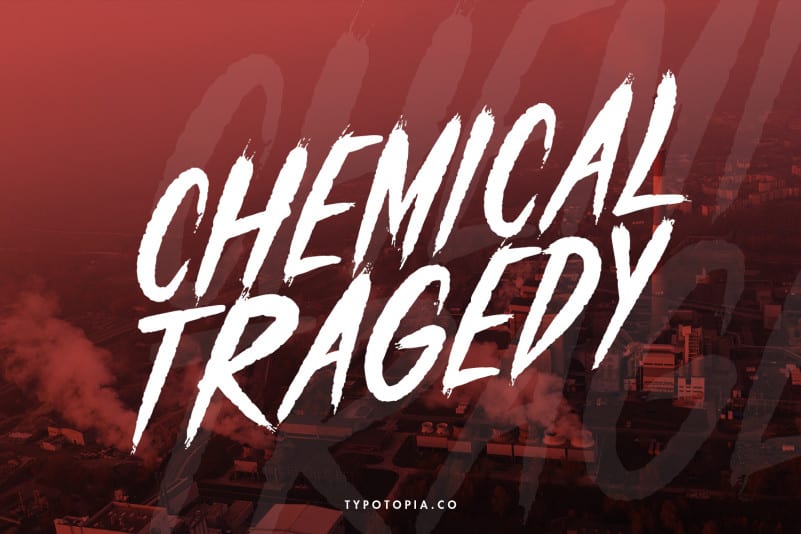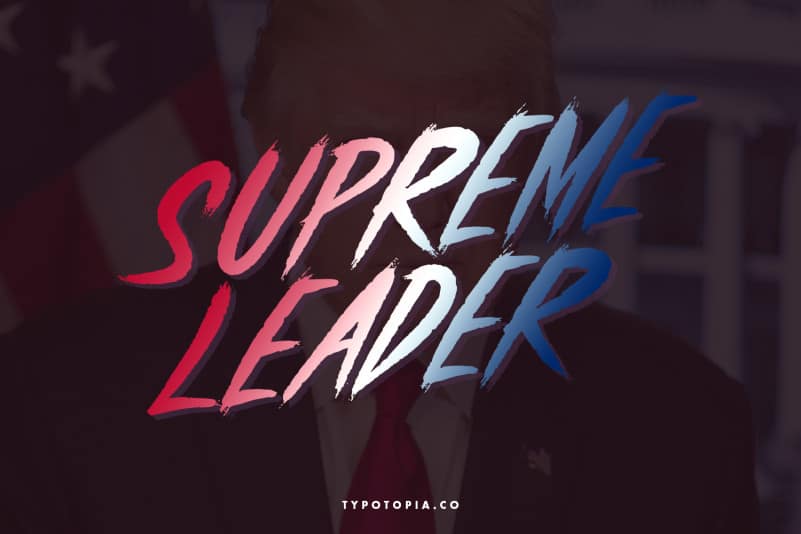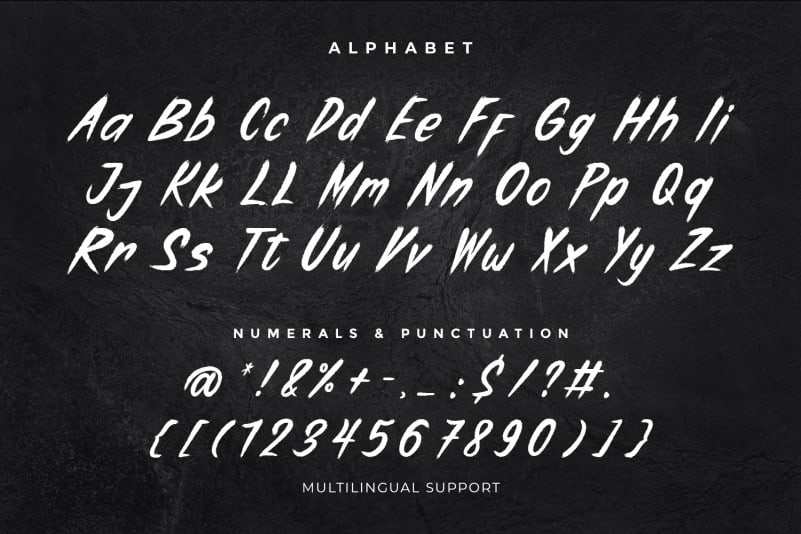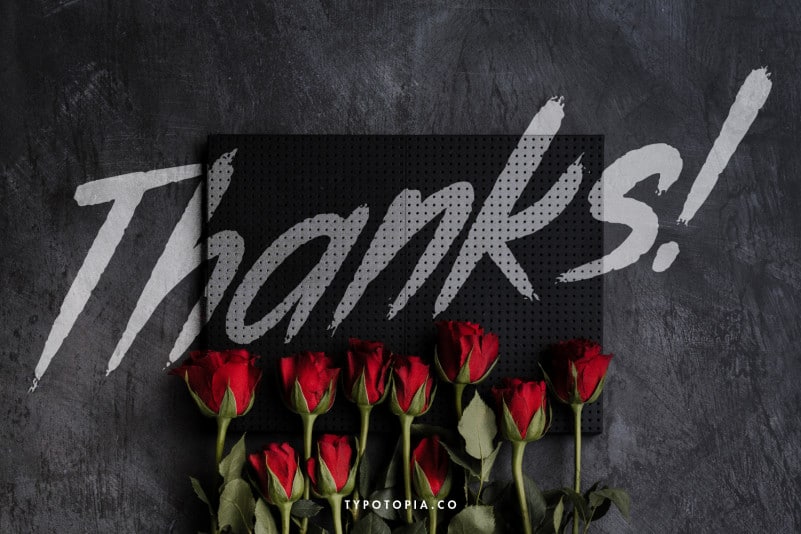
Haunter Display Font
Introducing, Haunter Display Font with Brush Style an incredibly Unique and Interesting Display Font
Haunter Display Font with Brush Style is an incredibly Unique and Interesting Display Font that is absolutely great for your next creative project such as logos, printed quotes, invitations, cards, product packaging, headers, Logotype, Letterhead, Poster, Apparel Design, Label, and etc.
This Versatile Font includes also support a Multilingual Characters. Making this Font a Swiss Army knife in your Font Library. It’s extremely fun to use as each word can be transformed to your liking.